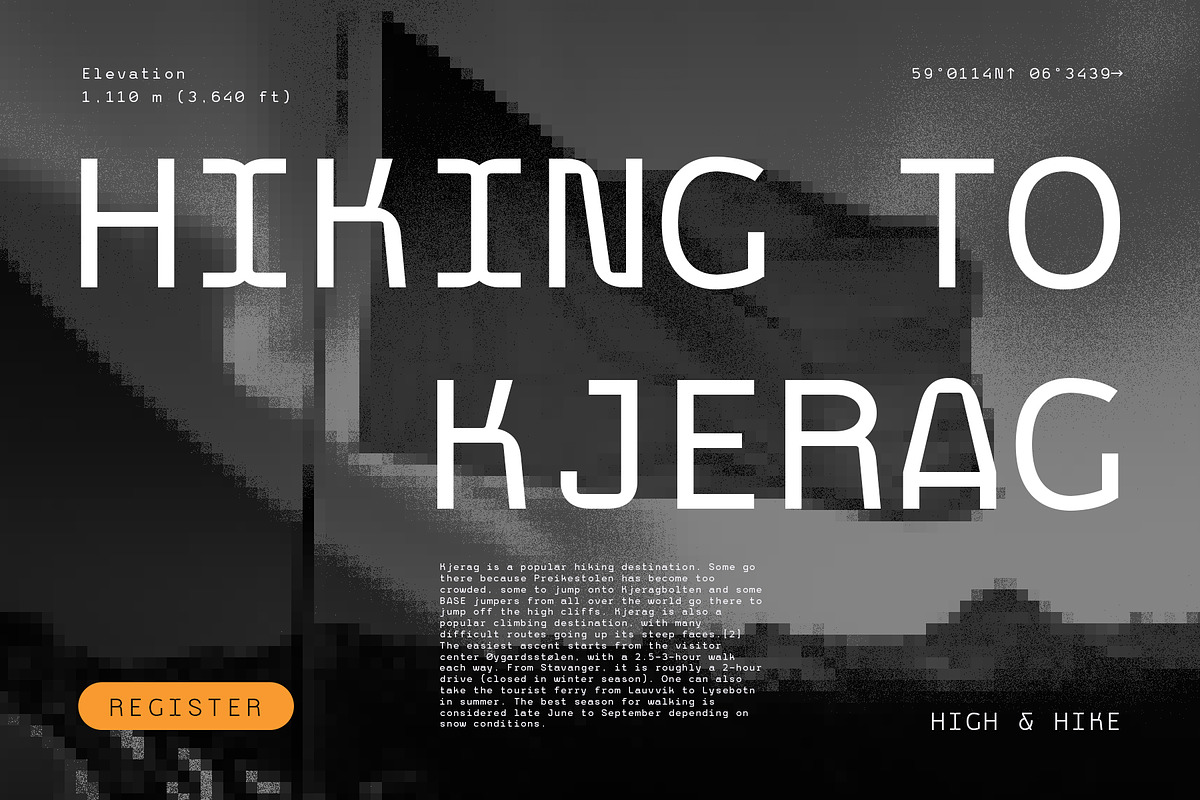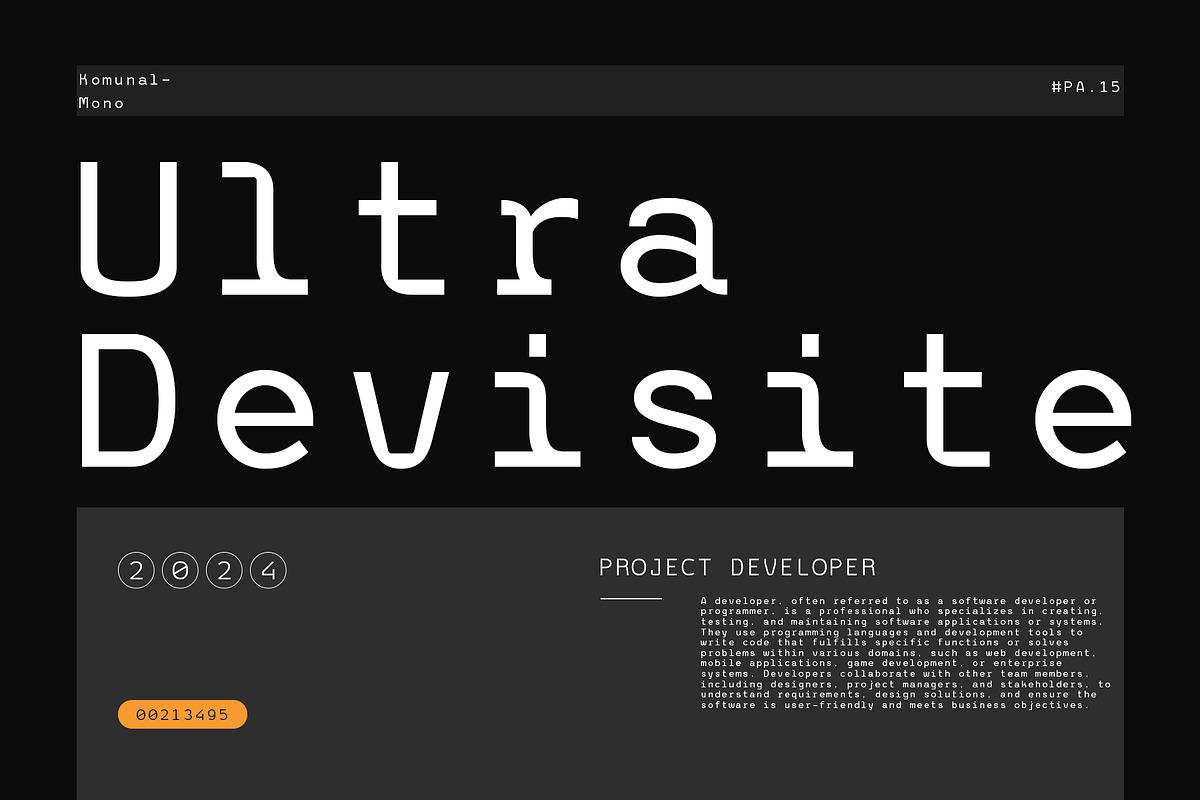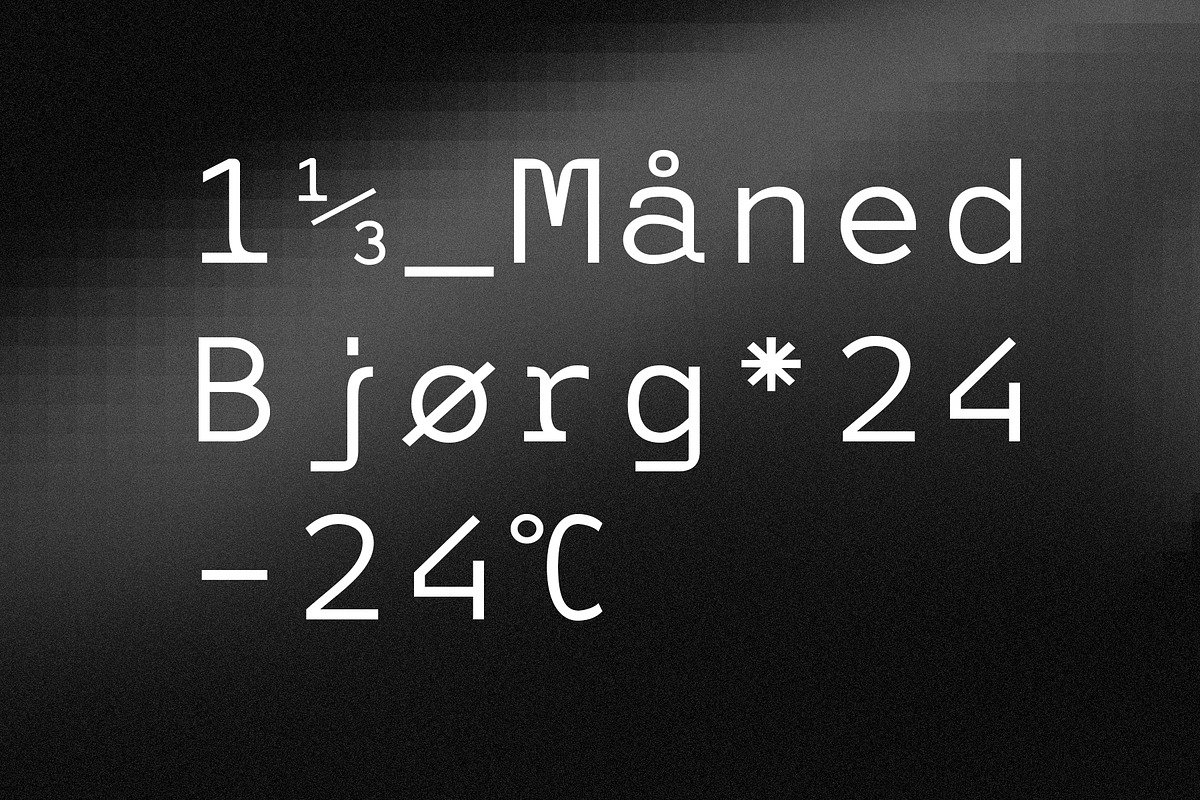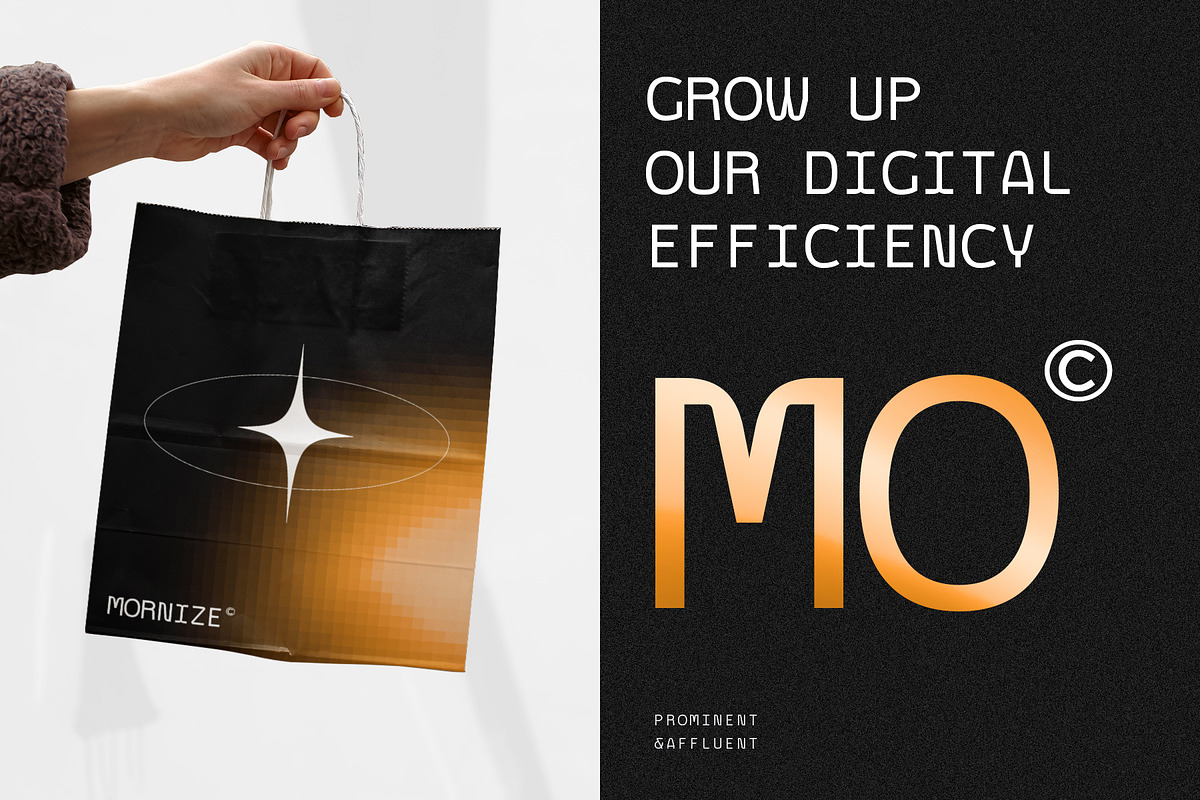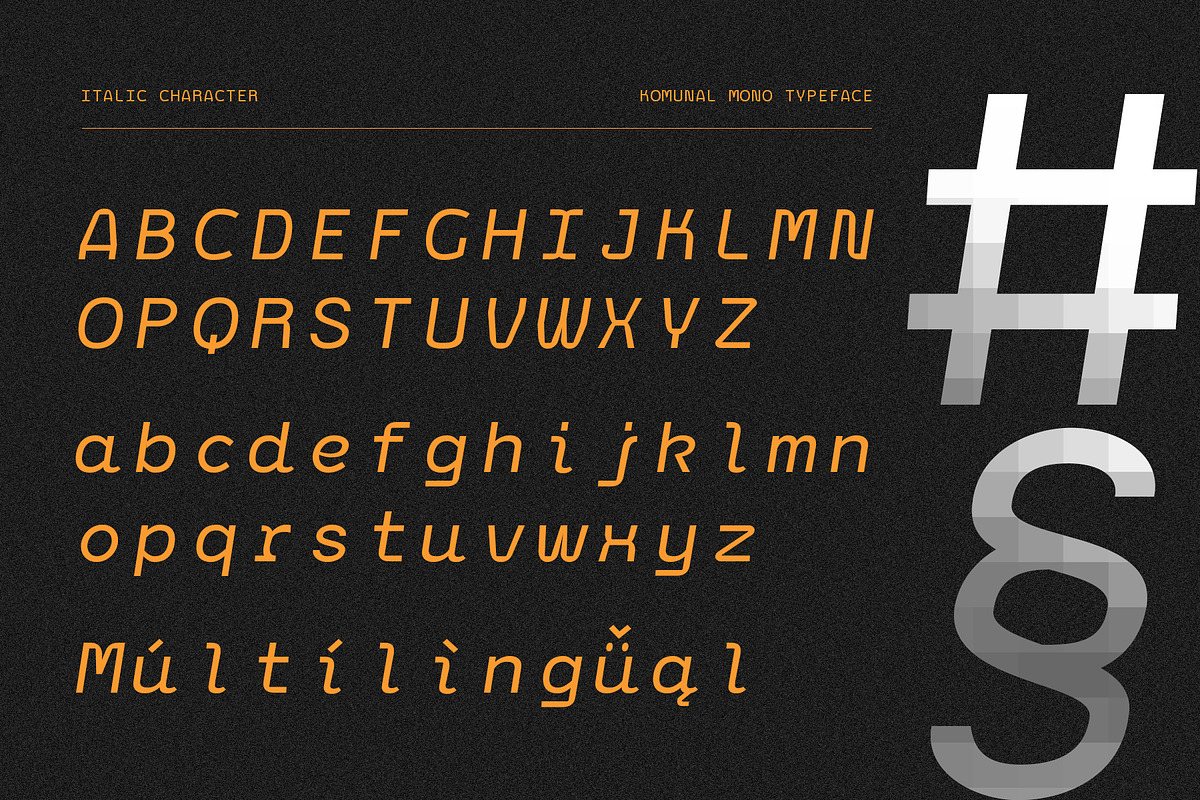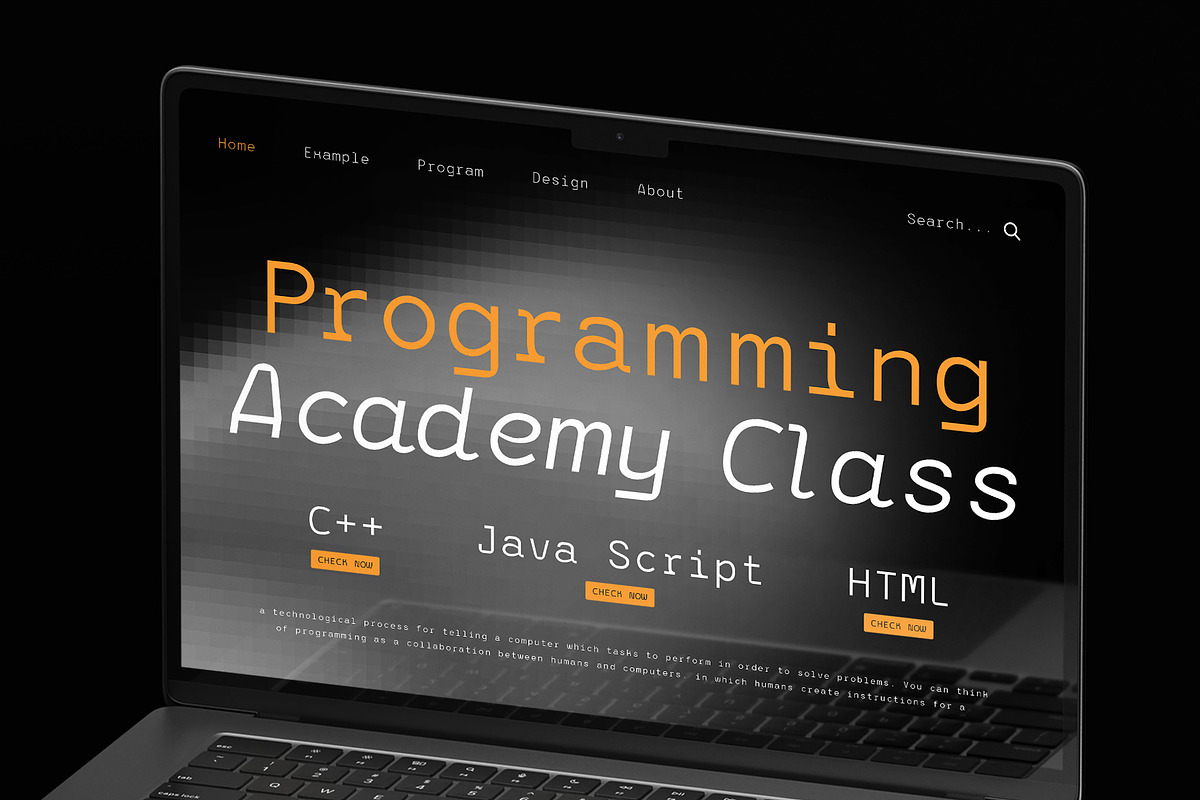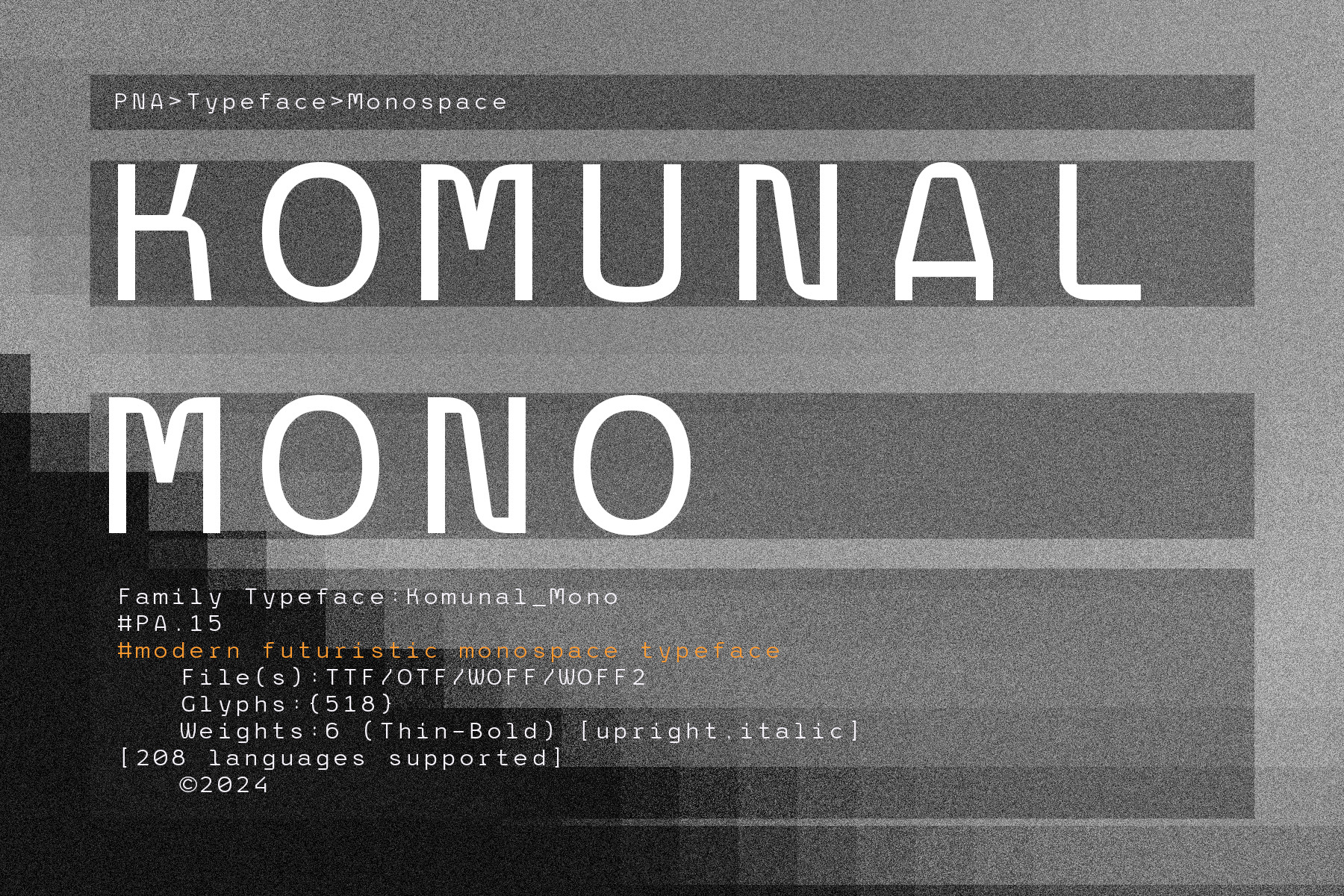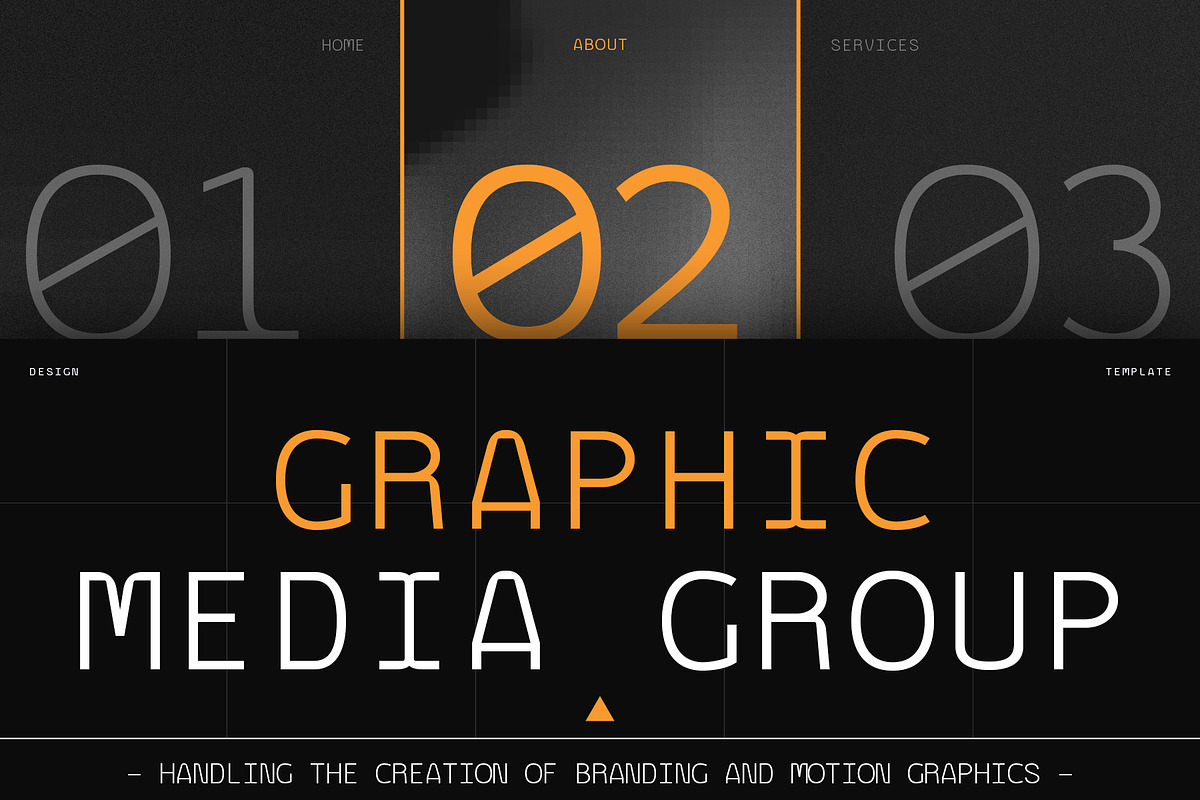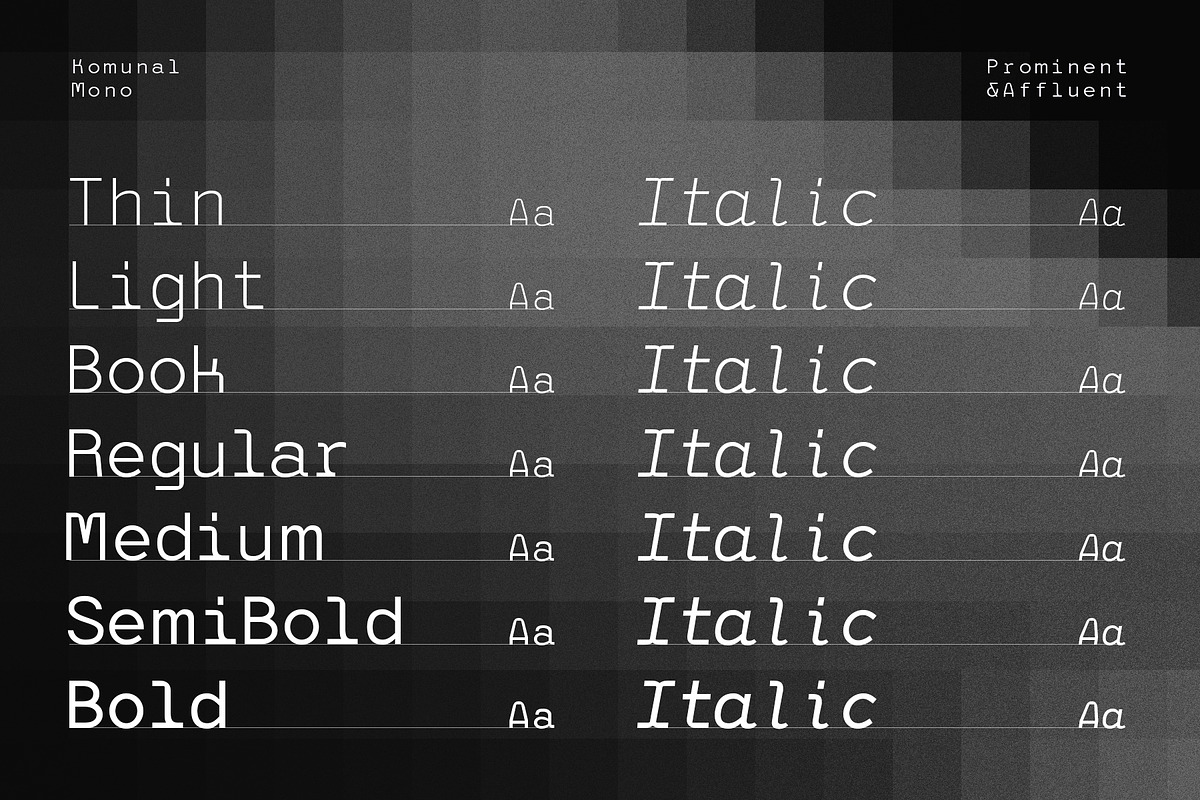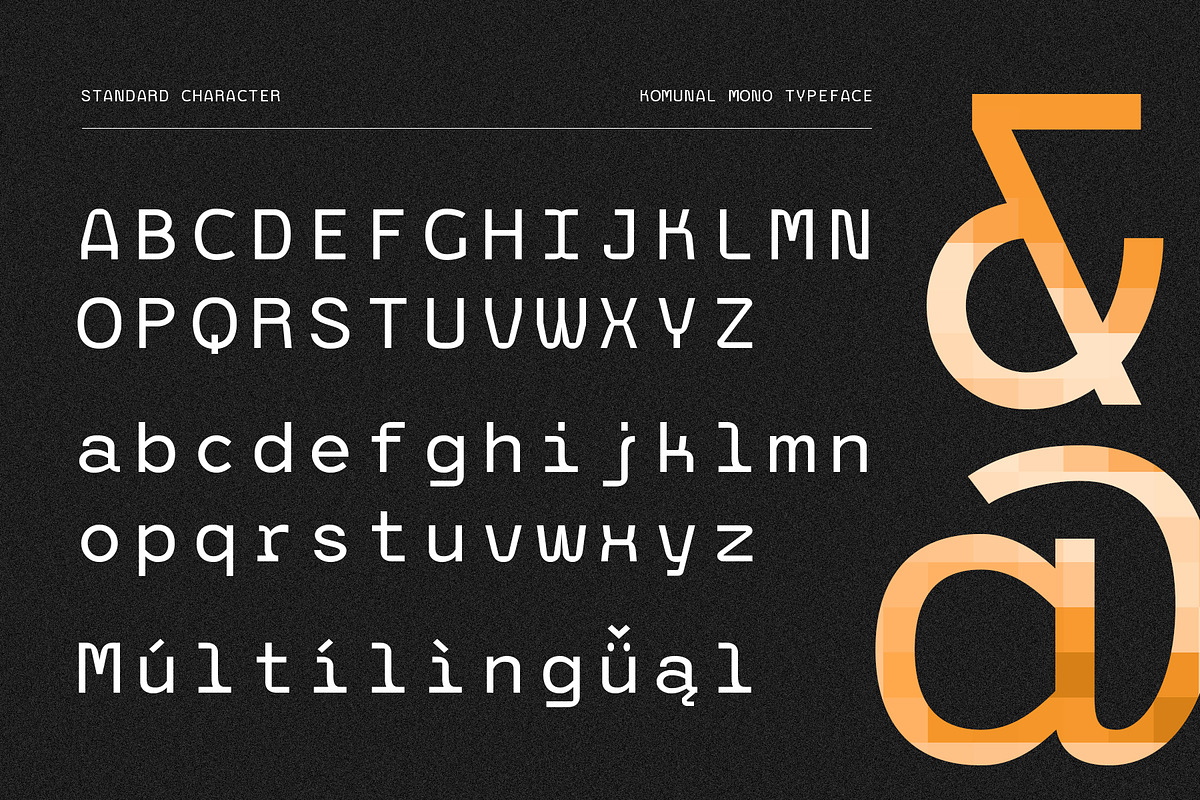
Komunal Mono - Monospace Font
Introducing Komunal, the ultimate monospace font family that redefines modern and futuristic typography. Inspired by the essence of "Communal," Komunal offers 8 versatile weights, each with its italic style, ensuring your designs stand out with sleek precision. Perfect for coding, design projects, and digital media, Komunal brings a unique blend of contemporary style and advanced readability.